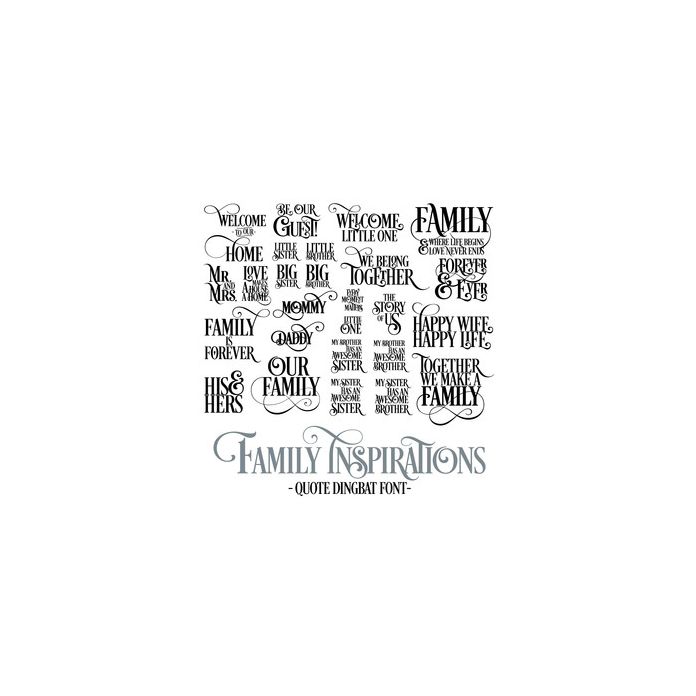
Family Inspirations Font - Inspirational Family themed Words & Quotes Dingbat Font. Includes 26 beautiful inspirational words and quotes, perfect for planners, wall art, home decor, word art, vinyl, scrapbooking, gifts and more!. All are assigned to an upper case letter starting with 'A' or can be accessed via glyphs. For more design ideas, coordinating designs & products and inspiration, please visit my blog http://www.sarahhurleyblog.com